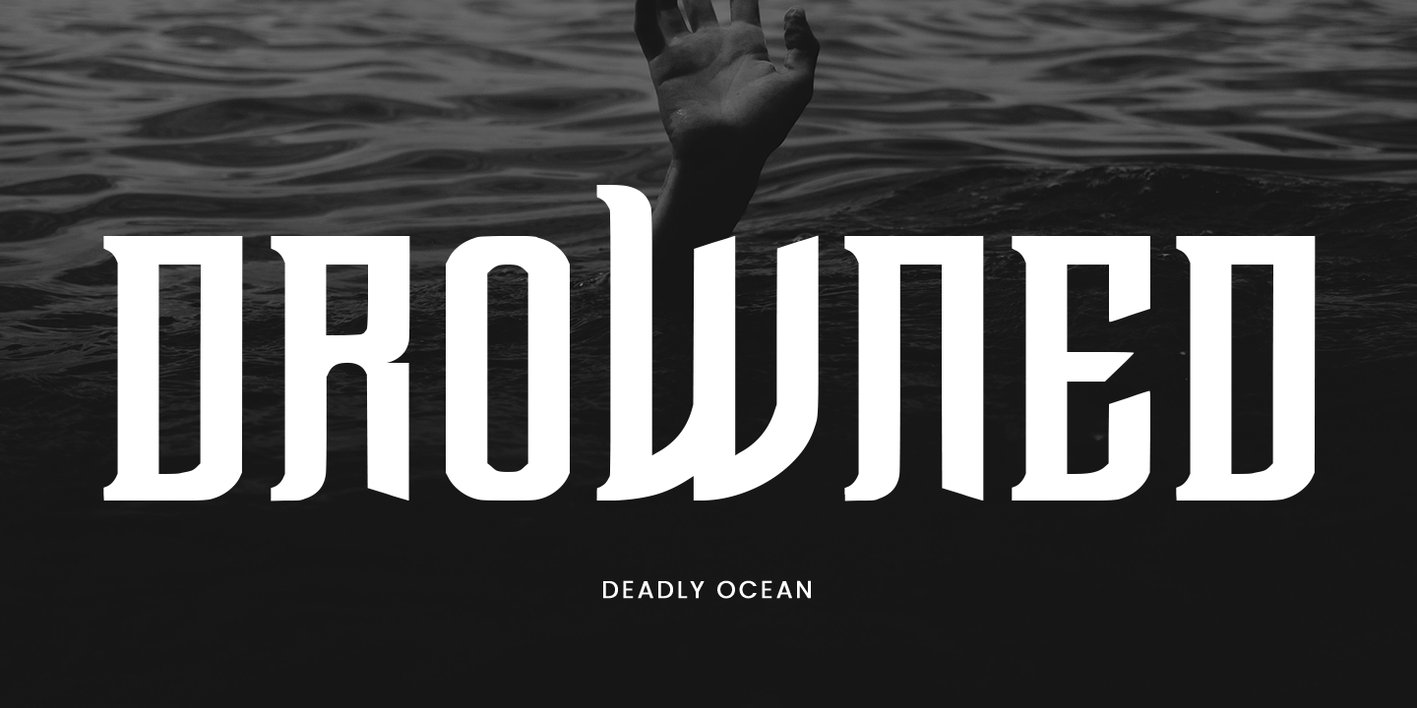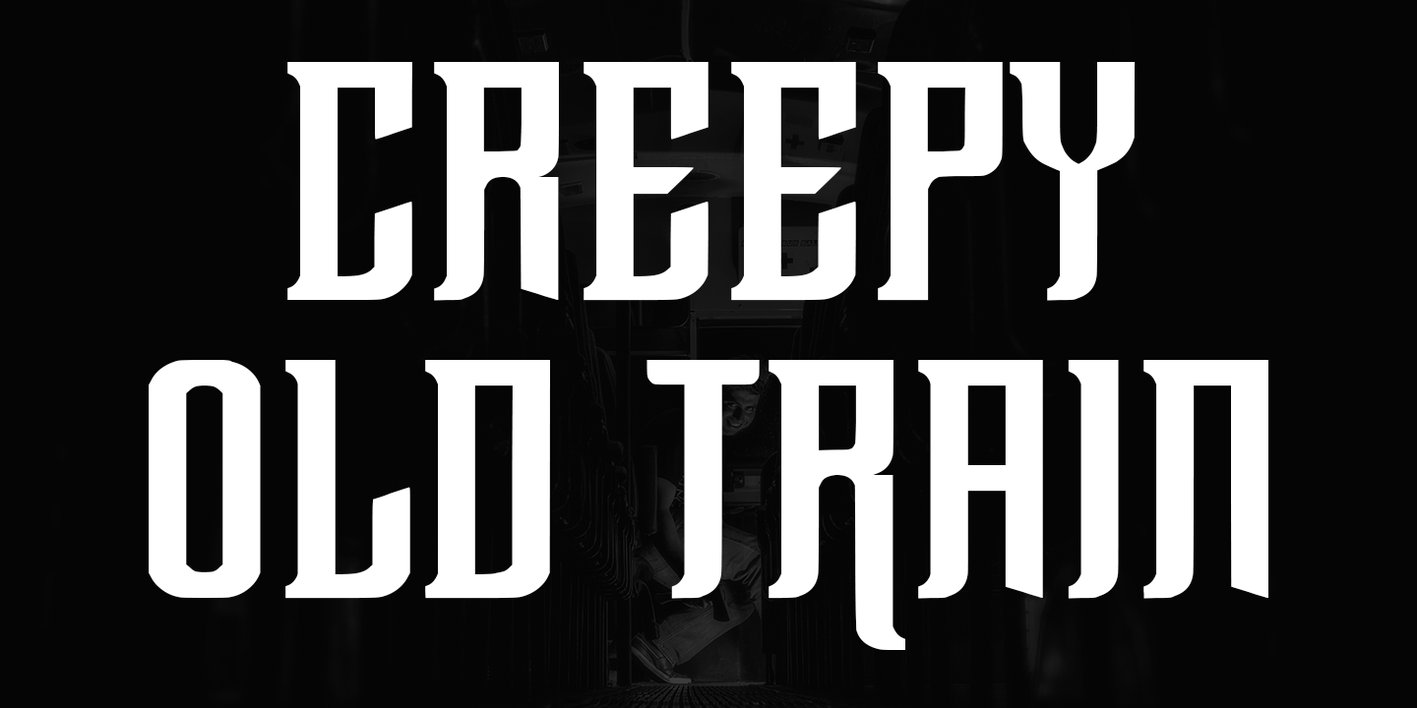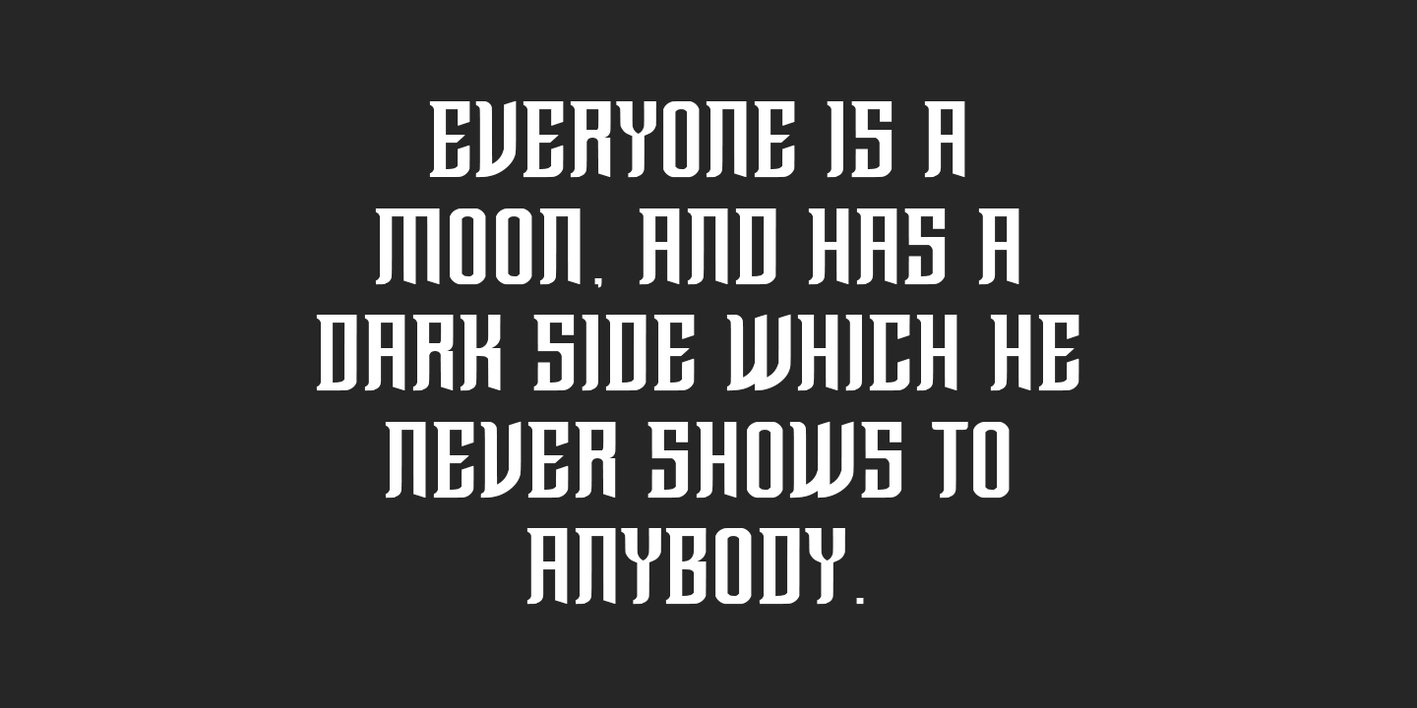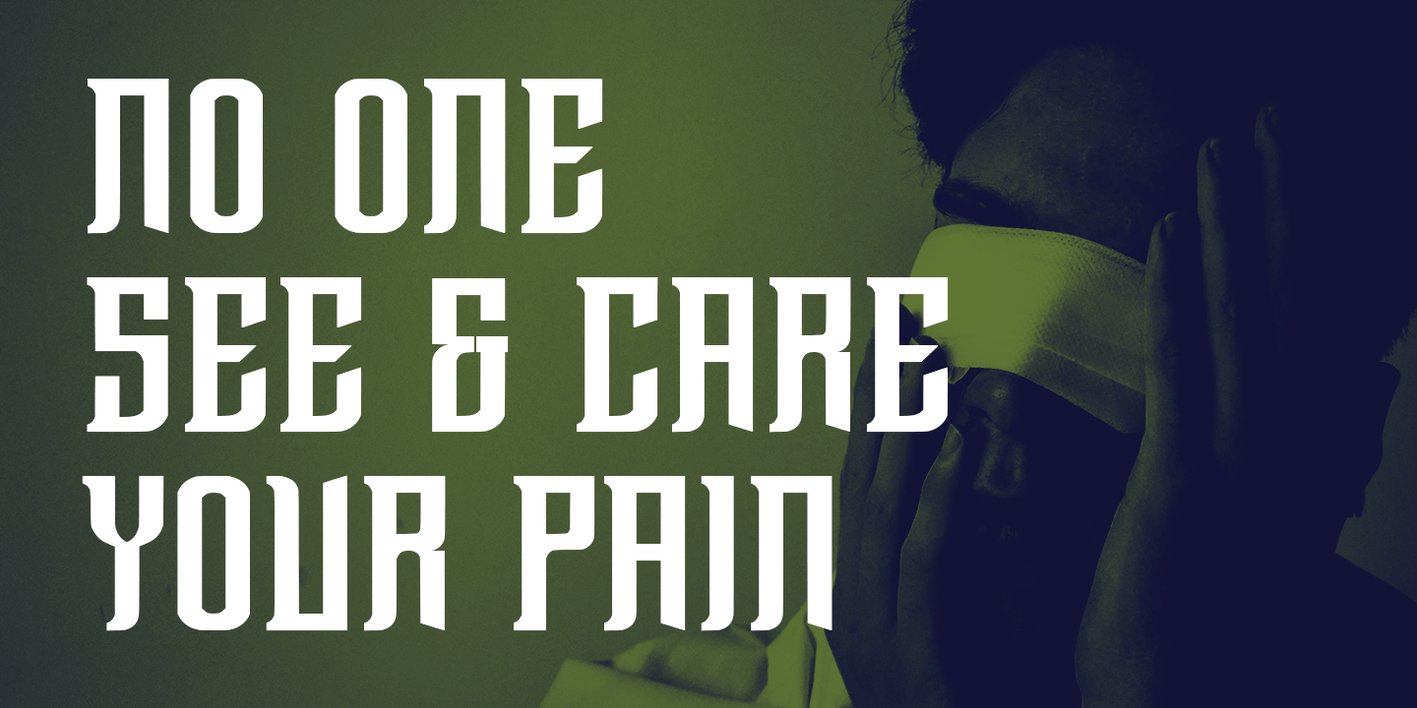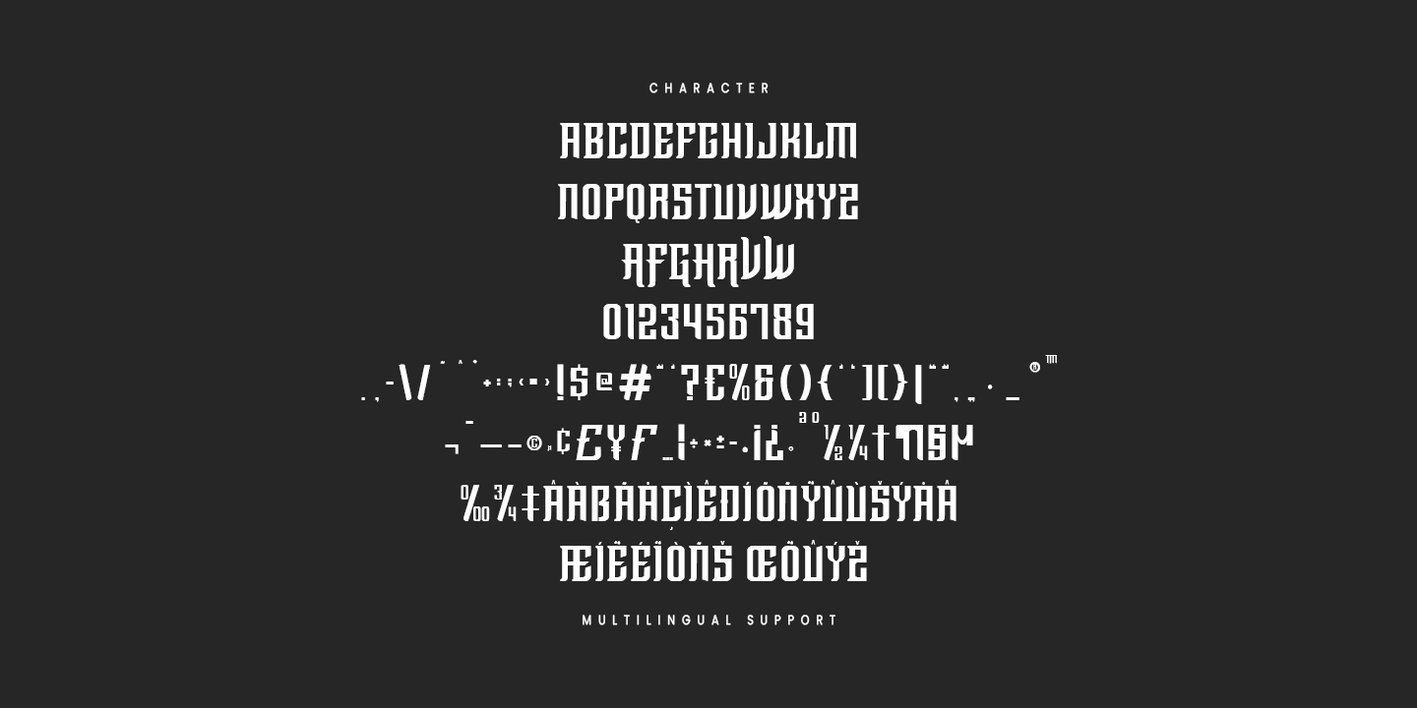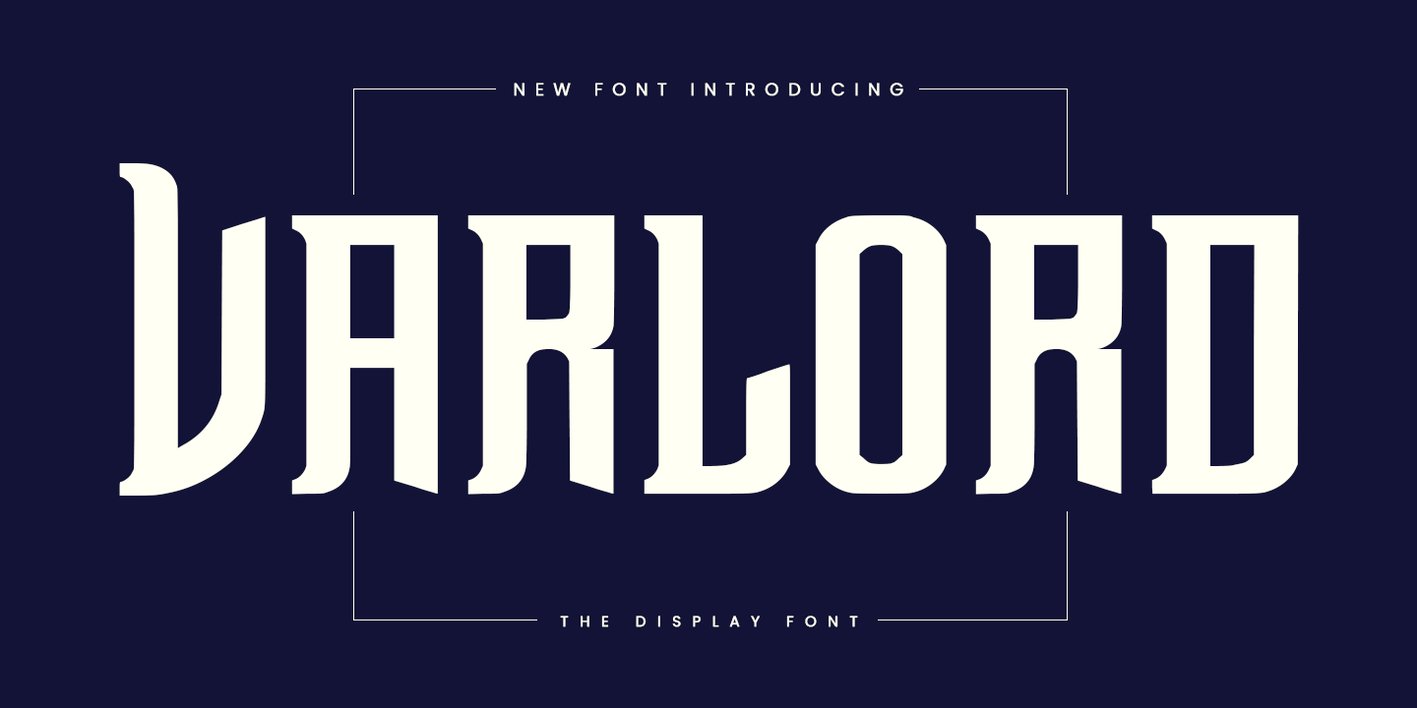
MC Varlord Font
Varlord Display Font Vintage is a handmade Modern Victorian handlettering, which is combining modern and classic typography with some awesome alternates. Yes we back to early 1800s, bring classic touch on this decade.